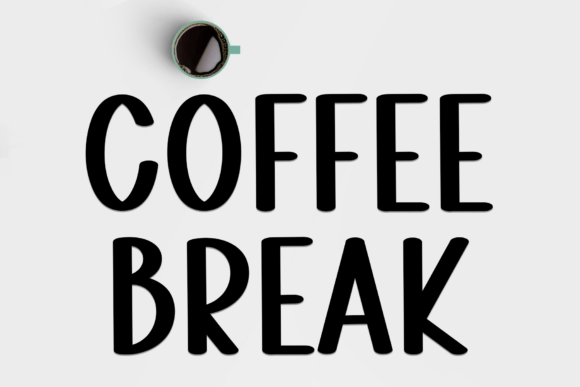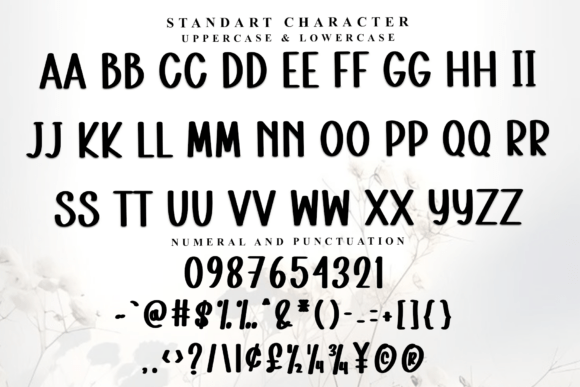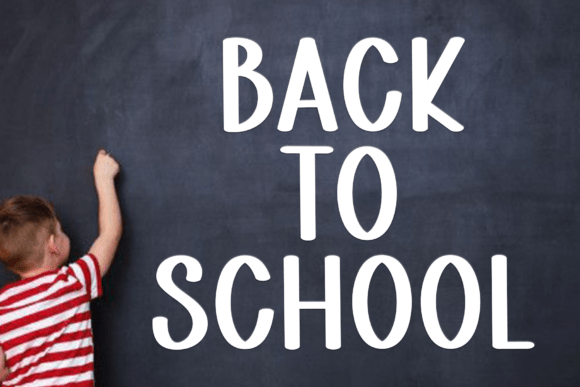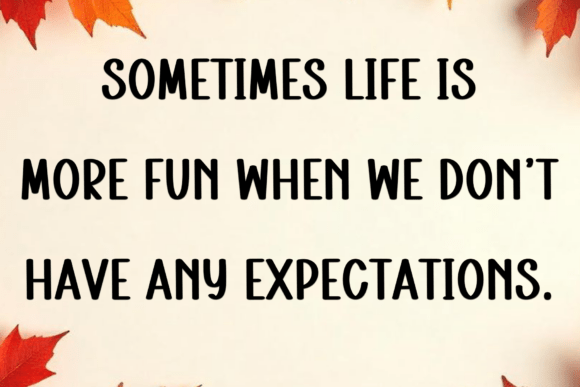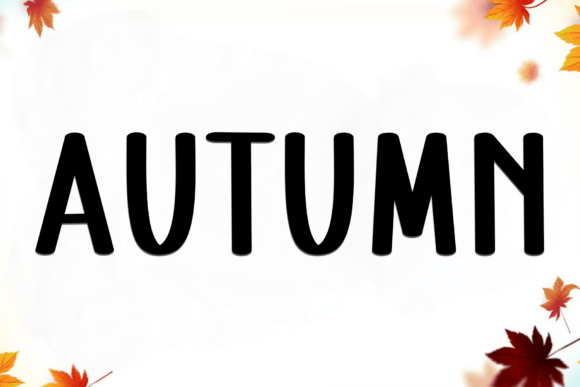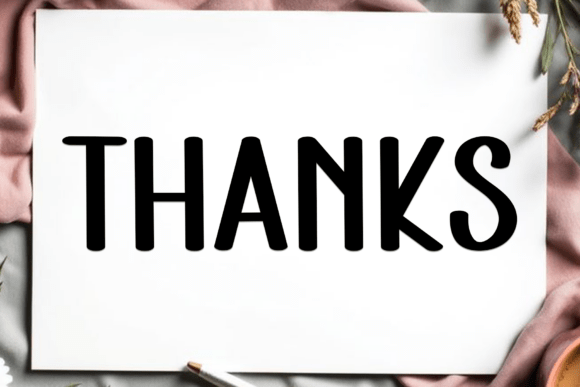
Introduction to Pumpkin Dreaming Font
Imagine you’re sitting at your desk, surrounded by papers, glue, and colorful pens, brainstorming ideas for your next creative project. The excitement of bringing your vision to life is palpable, but the right design resource can make all the difference. That’s where the Pumpkin Dreaming Font comes in – a beautiful and eye-catching typeface that adds a touch of magic to your designs.
With its soft, unique strokes, the Pumpkin Dreaming Font is the perfect addition to any design project. Whether you’re working on a craft, a digital graphic, or a written piece, this high-quality font will elevate your work and make it stand out from the crowd. And the best part? It’s available for free download, making it a valuable resource for designers of all levels.
Pumpkin Dreaming Font
- Unique, hand-drawn design perfect for creative projects and fall-themed designs
- Large character set, including uppercase and lowercase letters, numbers, and punctuation marks
- Perfect for use in graphic design, digital art, and print materials, such as posters, invitations, and greeting cards
Honest Review: Pumpkin Dreaming Font
I recently stumbled upon the Pumpkin Dreaming Font while searching for design resources to enhance my creative project. As a designer, I appreciate discovering new high-quality fonts that can elevate my work.
Here’s what I like about the Pumpkin Dreaming Font: ✨ The font’s whimsical feel and intricate details make it perfect for autumn-themed designs. ✨ The transparent background allows for easy customization and blending with other design elements. ✨ The font’s versatility is impressive, and I found it suitable for both digital and print projects.
In conclusion, the Pumpkin Dreaming Font is a solid design resource for anyone working on a creative project, especially those with a focus on autumn or Halloween themes. While it has its limitations, its unique style and high-quality design make it worth considering.
- Pros: whimsical feel, intricate details, transparent background, versatile
Pumpkin Dreaming Font
Tips for Getting the Most Out of Pumpkin Dreaming Font
For the best results, use Pumpkin Dreaming Font with a transparent background to ensure your design looks crisp and clean. Experiment with different font sizes and styles to find the perfect combination for your creative project.
Pumpkin Dreaming Font is perfect for a variety of design projects, including:
- Invitations and greeting cards
- Infographics and presentations
- Printable art and wall decor